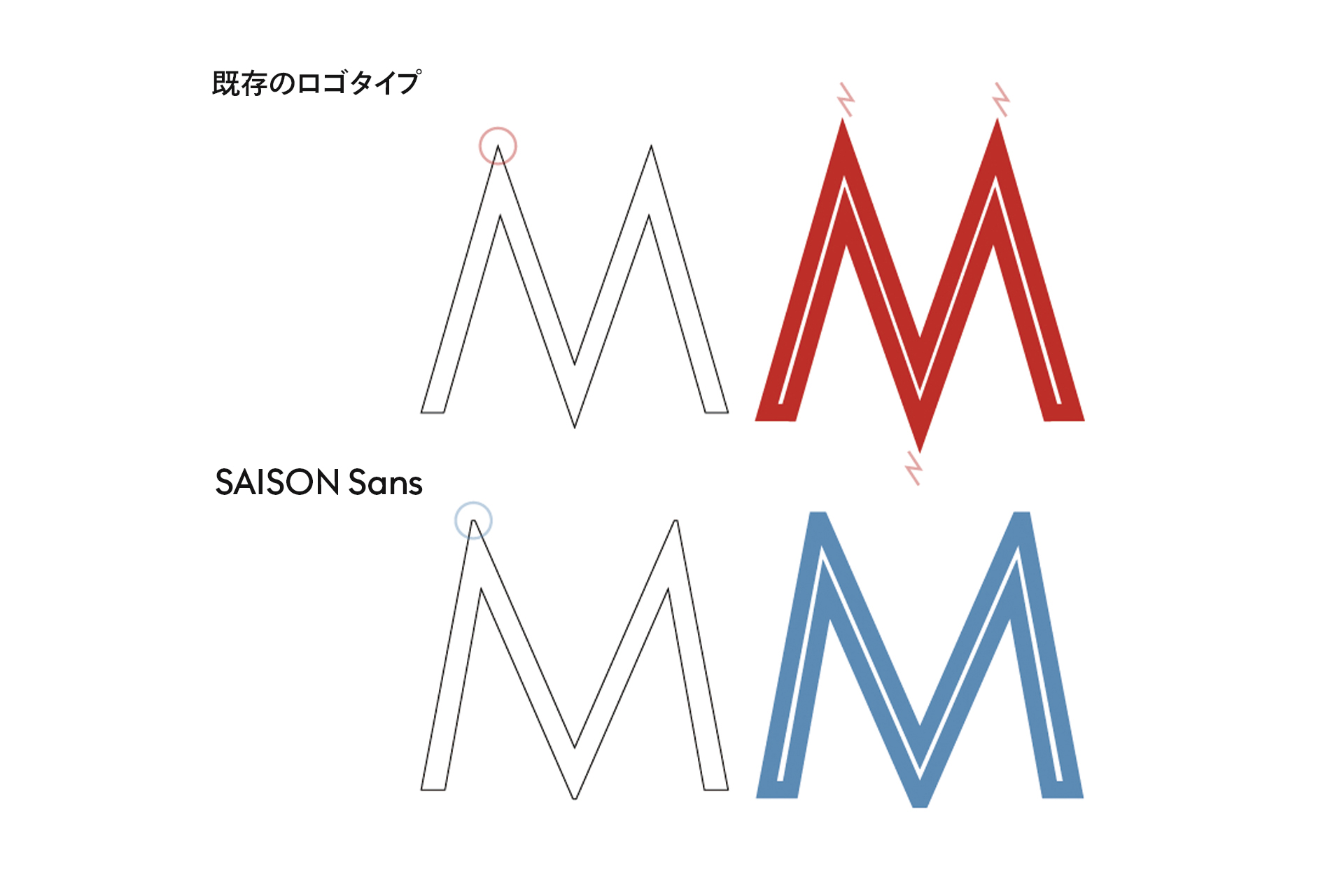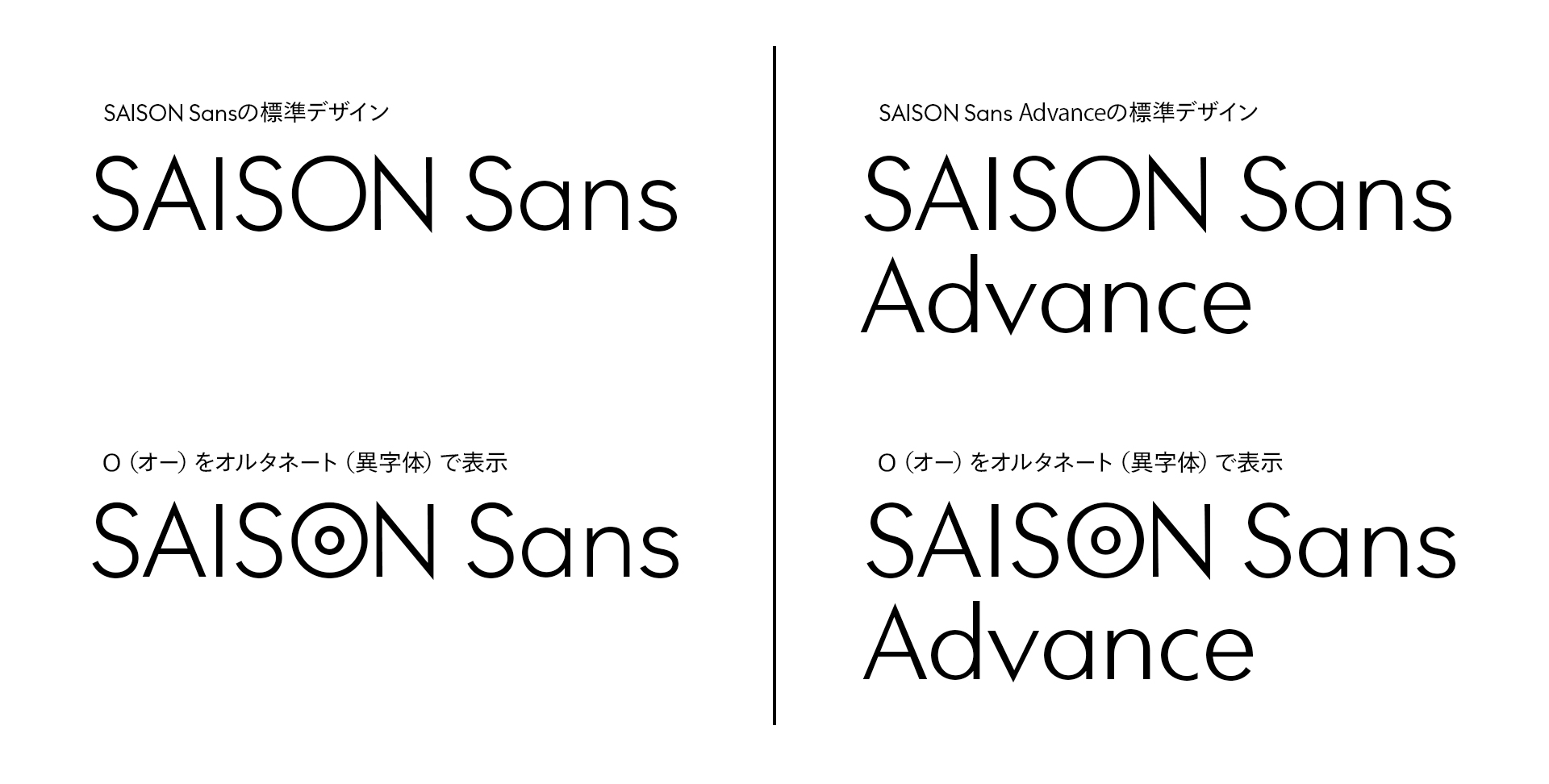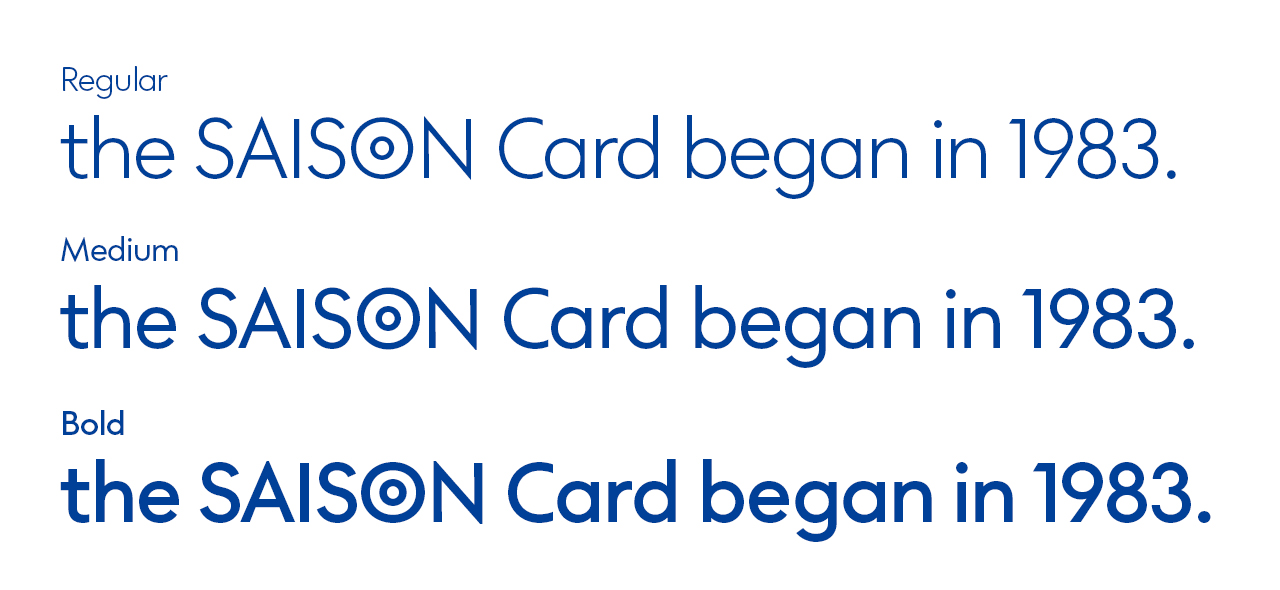
Fontworks Inc. (Headquarters: Minato-ku, Tokyo, President and CEO: Hisahiro Shimizu, hereinafter referred to as Fontworks) has developed two typefaces, including Credit Saison Co., Ltd.'s corporate font, "SAISON Sans."
Credit Saison Co., Ltd. (hereinafter referred to as Credit Saison), known for its "Saison Card" since 1983, has set its vision for 2030 as "GLOBAL NEO FINANCE COMPANY - a global comprehensive lifestyle service group with finance at its core" and is expanding its business to approach a wide range of aspects of our lives.
Credit Saison's logotype, created by Ikko Tanaka, a leading figure in Japanese graphic design, remains a symbol of the brand to this day. As the company rapidly expands its global business, a project was launched to develop a Western typeface that follows this historic logotype in order to ensure consistency in the brand image of Credit Saison.
Credit Saison and a team led by Fontworks typeface design director Joachim Müller-Lancé have completed two corporate fonts, "SAISON Sans" and "SAISON Sans Advance."
1. SAISON Sans: A typeface that inherits the historic Credit Saison logotype
SAISON Sans is a geometric sans serif font that follows the existing logotype, which is also familiar from the Saison Card logo. Joachim, font design director at Fontworks, said of this logotype, "It is precisely because it is geometric and unconventional that it has attracted attention and been loved." Joachim saw this as the essence of Credit Saison and incorporated it into the typeface.
Joachim began by carrying out a detailed analysis of the existing logotype and revising the proportions of all letters, slightly chamfering the sharp overshoots* of letters such as the M, making fine adjustments that took optical illusions into account, and smoothing the outlines.
This resulted in a corporate font that is full of the Credit Saison character and can be used in a variety of situations for communicating both inside and outside the company.
*Overshoot: A phenomenon in which a part of a typeface extends slightly beyond the reference line or center line in order to maintain a consistent visual height.
2. SAISON Sans Advance: A typeface that connects Credit Saison's culture to the future. A typeface that combines tradition and modernity.
SAISON Sans Advance is a typeface that pursues even greater readability than SAISON Sans. As an advanced version of SAISON Sans, which is composed of uniform strokes, it adds an element of contrast. By adding subtle changes to Weight of the lines, it expresses a natural intonation while incorporating elements of calligraphy.
This gives the text an elegant and sophisticated impression, and also enhances readability when typesetting long passages in Roman text.
Alternate characters inherit the design identity of Ikko Tanaka
Both SAISON Sans and Advance are available with alternate versions of the double circle "O", which is an iconic presence in the Credit Saison logo. Ikko Tanaka's design identity has been firmly inherited in this typeface.
Going forward, SAISON Sans/Advance will be used across all digital media, including official documents, the company's website, and investor relations site, in order to build a consistent brand image in Credit Saison's internal and external communications.
Japan Typography Yearbook 2025, Type Design Category, Selected
The Japan Typography Yearbook is an award hosted by the NPO Japan Typography Association that is highly regarded overseas. SAISON Sans/Advance was selected in the type design category of the Japan Typography Yearbook 2025 from among 2,045 entries from Japan and abroad.
A special website for SAISON Sans is now open, where you can learn more about the appeal of SAISON Sans/Advance. It features an explanation of the typeface by Joachim Müller-Lancé, who designed it, as well as thoughts on the project from Credit Saison Co., Ltd.'s Branding Strategy Department.
In addition, the Fontworks x Monotype official note features an interview with the Branding Strategy Department in which they discuss in detail the background to the creation of SAISON Sans. Please take a look.
Comment from Naoki Yamamoto, Manager/Lead Designer of the Branding Strategy Department at Credit Saison Co., Ltd.
Our company is based on the idea of proposing Styles, not selling products, and to do that we need to have a dialogue with you. Letters are an important element that supports communication, and the impression of a typeface is conveyed to the recipient without them even being aware of it. Sincere letters, fun letters, playful letters - in that sense, SAISON Sans is a typeface that is characteristic of Credit Saison.
I hope that this typeface will appeal to many people and be used in a wide range of situations.
Born in Germany, he studied graphic design at the Basel School of Design in Switzerland, and has received high acclaim for his work, winning typography competitions in various countries, including Japan.
In 2018, he worked as the Roman design director at YOON Design, a font manufacturer in Seoul.
In 2020, he joined Fontworks and took up his current position as typeface director for Western typefaces.